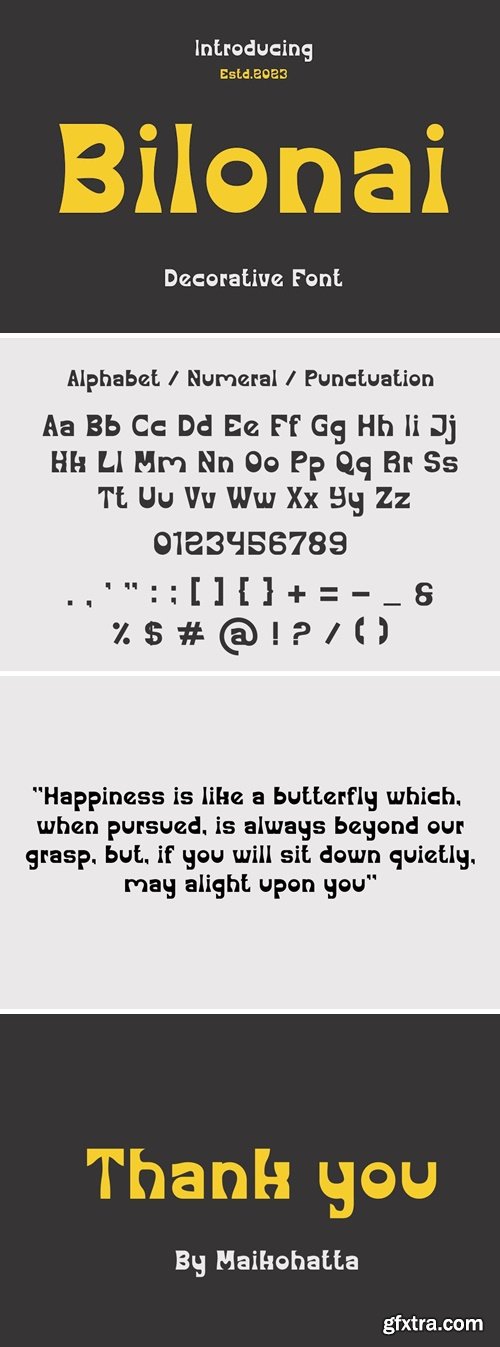
Bilonai Font
Bilonai Font - Modern Font is a bold and authentic decorative font. The font is suitable for any branding project like logo, t-shirt printing, esport, and many more. outstanding in a wide range of contexts.